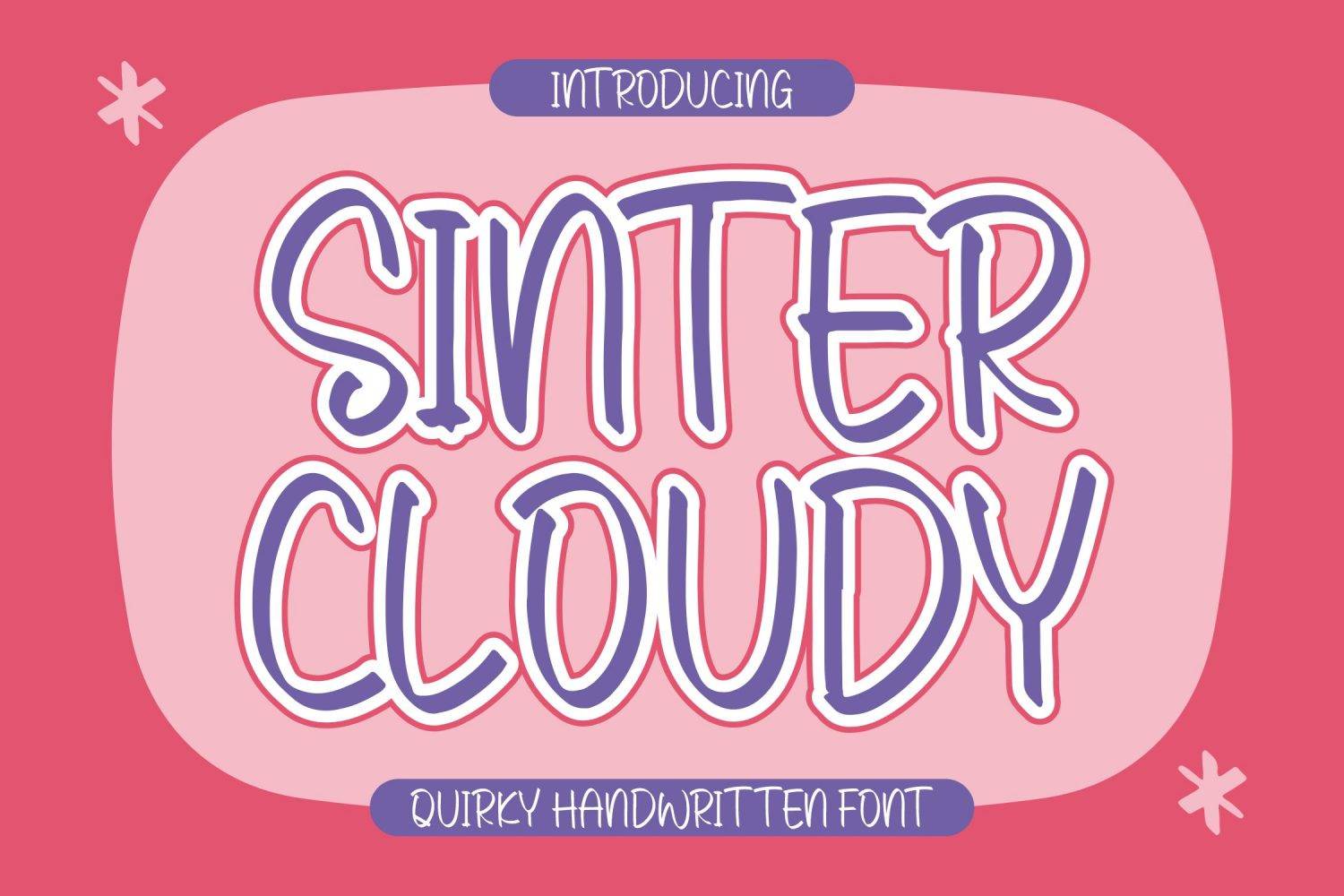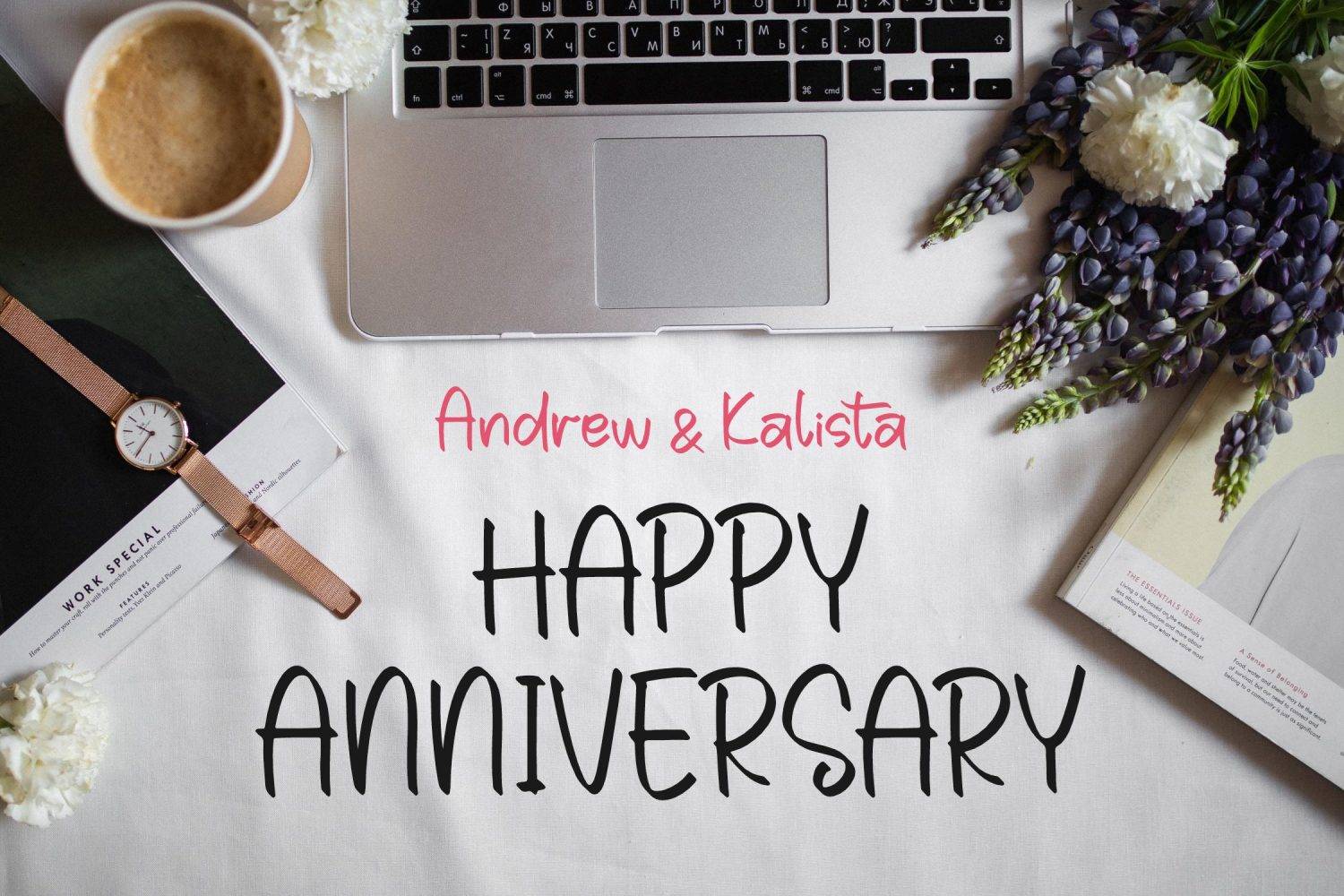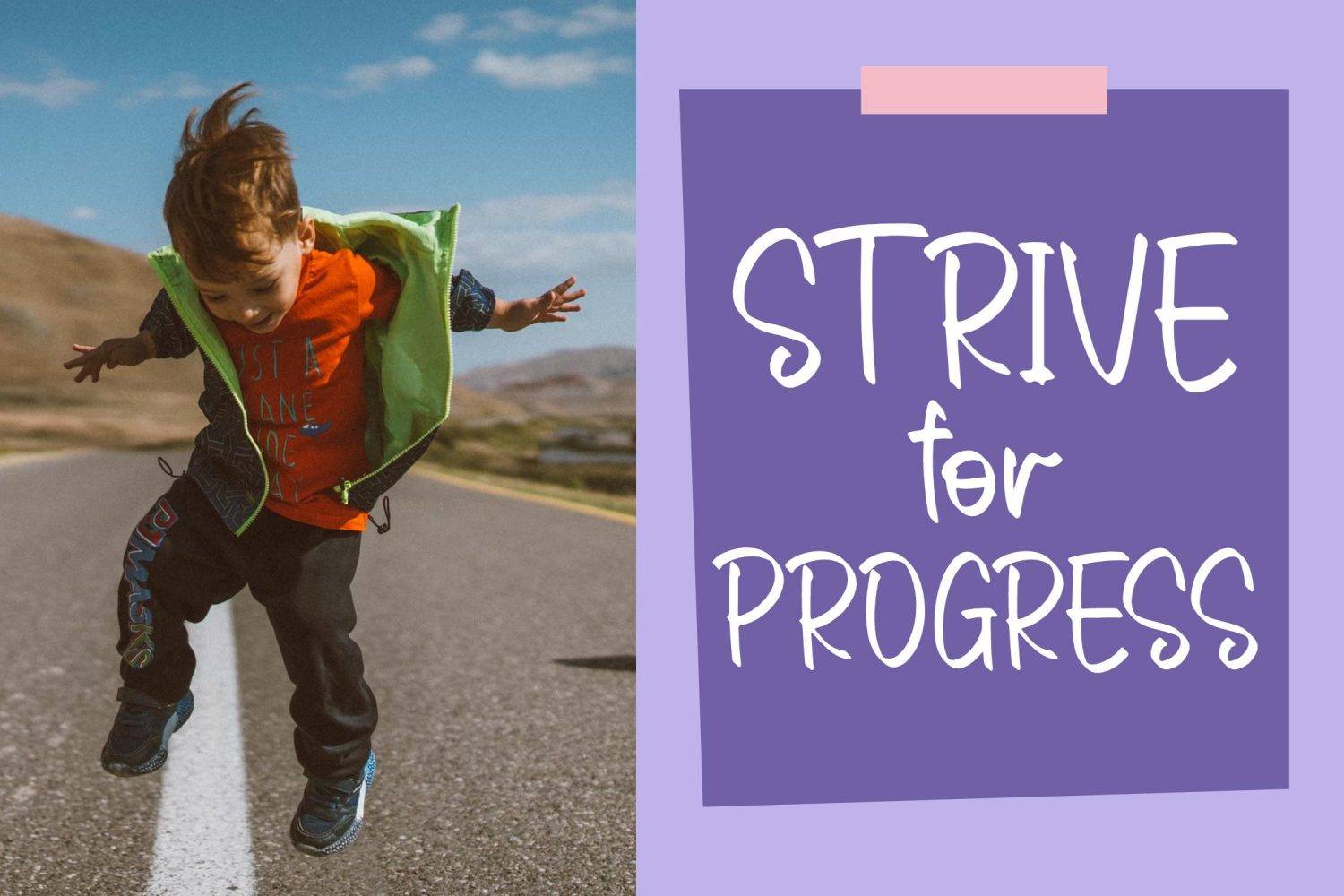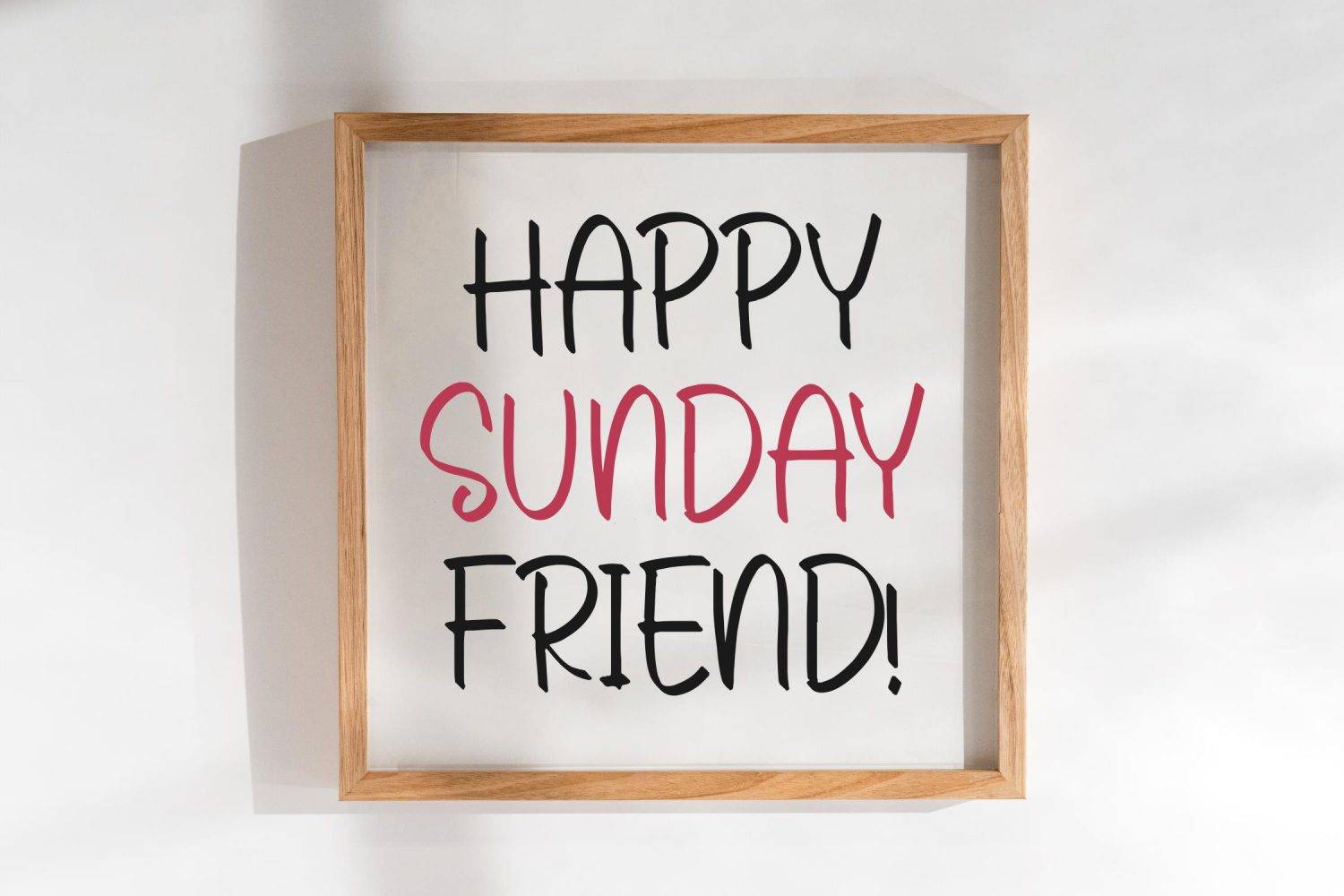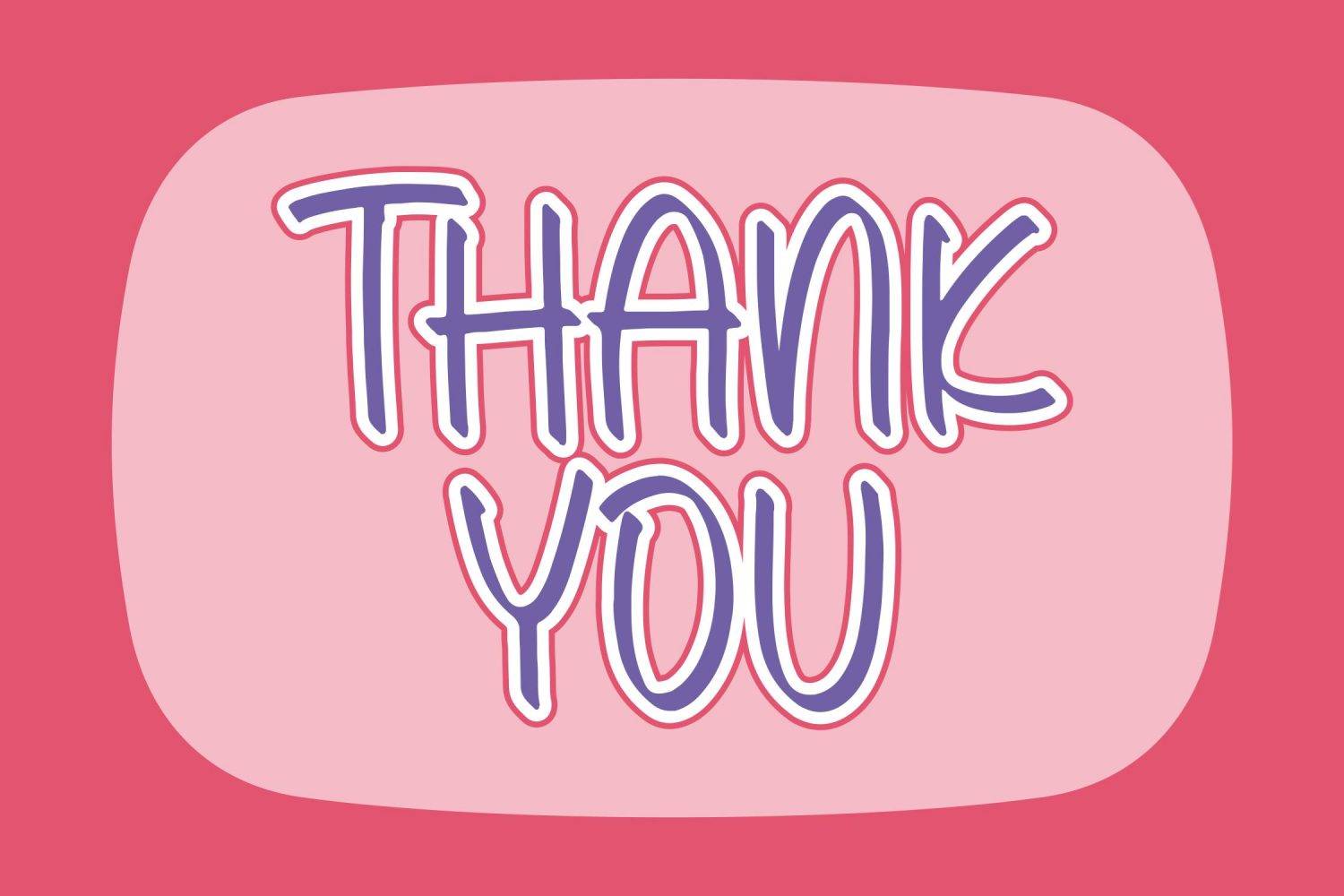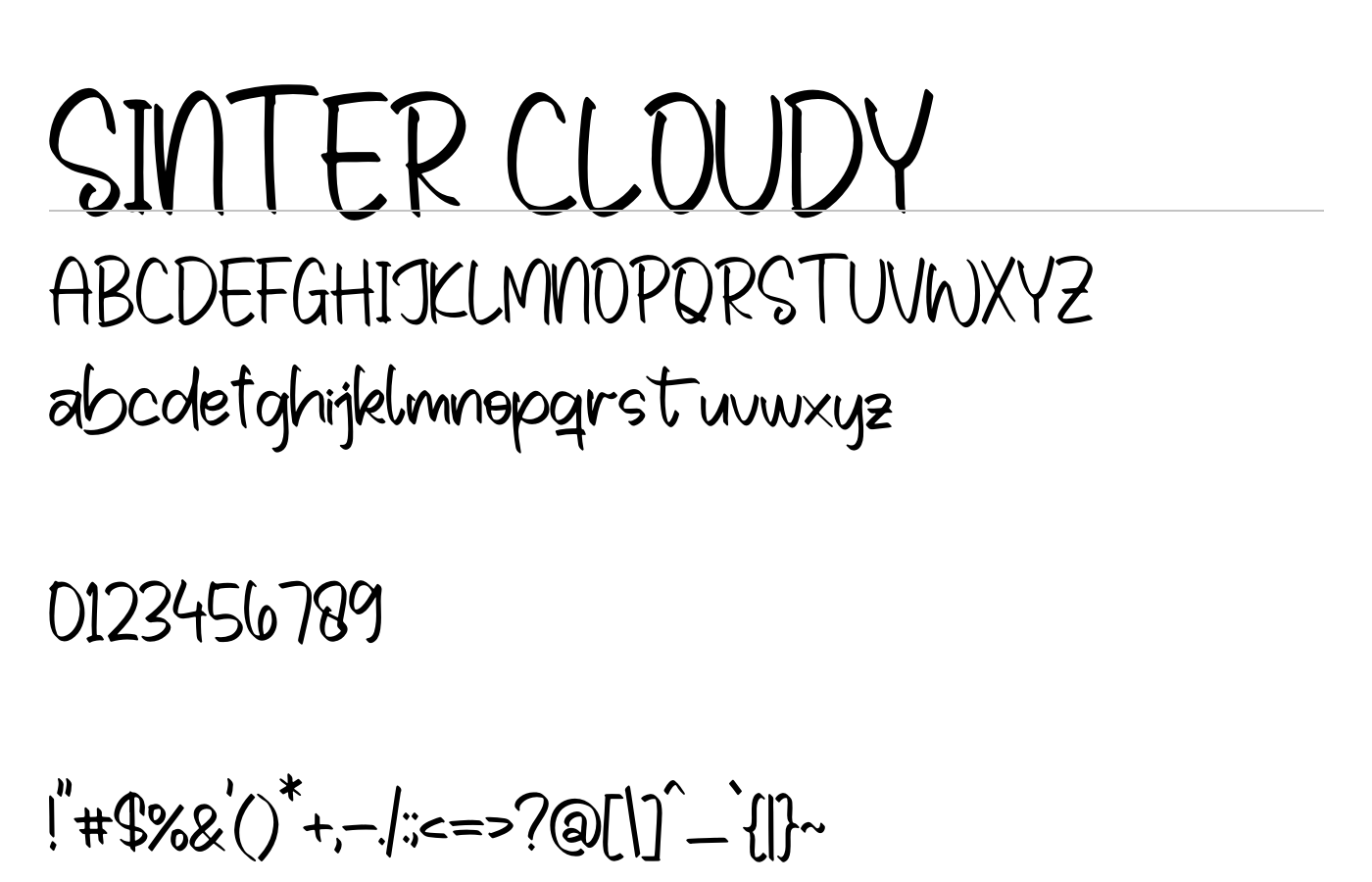
Sinter Cloudy is a playful, casual handwritten font that features a light weight and tall, narrow letterforms with a slightly irregular, organic stroke style. With its friendly curves and varying baseline, it brings a youthful and approachable feel, making it ideal for creative projects, children’s content, and informal branding that seeks a warm, personal touch. This font works best in headlines, logos, and packaging where a fun and relaxed atmosphere is desired.
Sinter Cloudy Font
About Sinter Cloudy Font